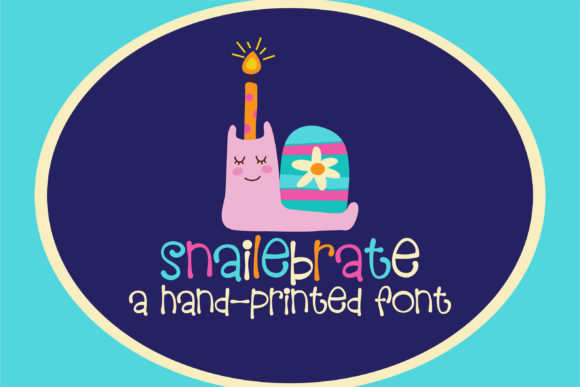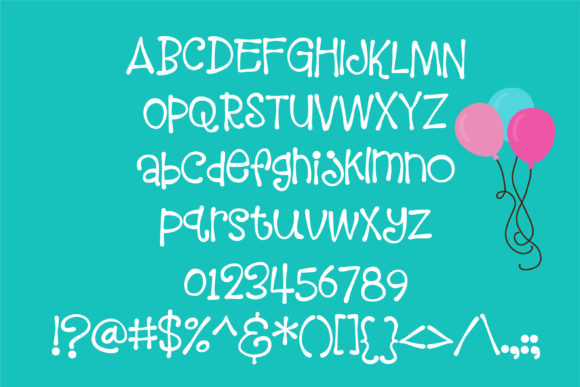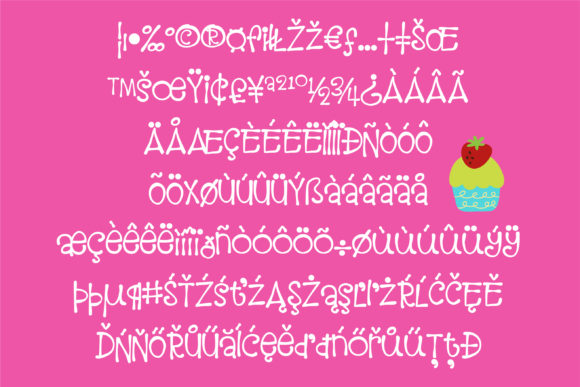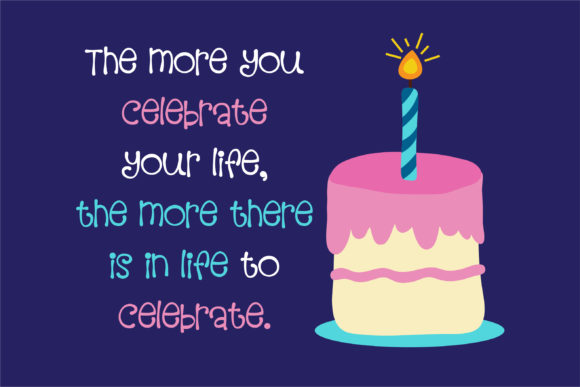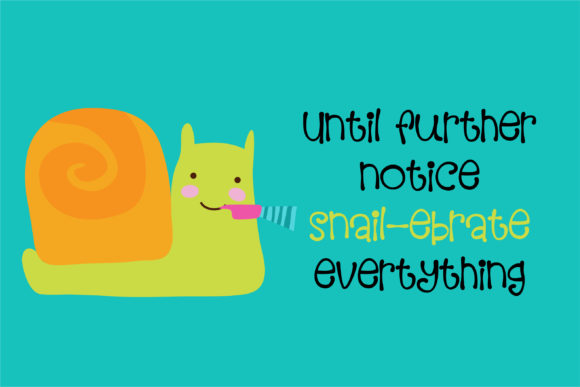
Snailebrate Font
About Snailebrate Font
Snailebrate is a beautiful and joyful handwritten font that will turn any design project into a charming stand out!